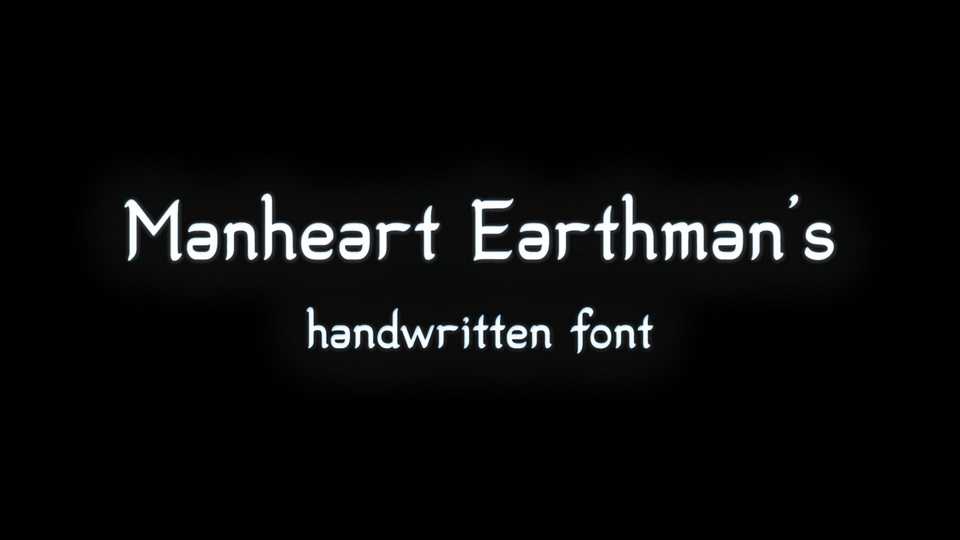
Download Manheart Earthman font, a handwritten calligraphic typeface uniting the Eastern and the Western sense of aesthetics while staying on the sweet spot between elegance and minimalism.